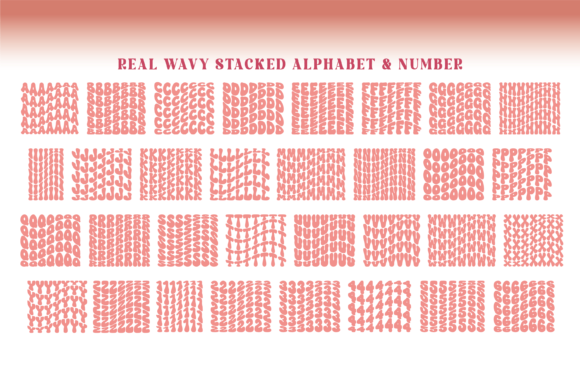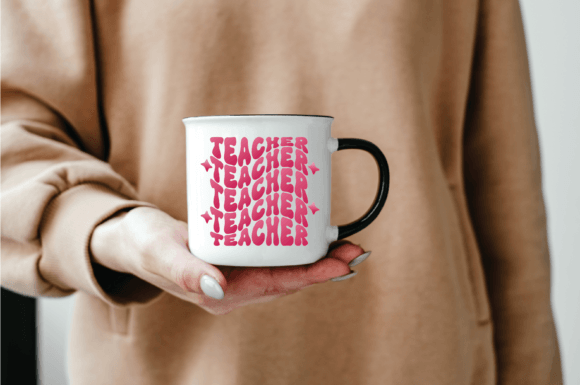
Real Wavy Stacked Font
Real Wavy Stacked is Groovy font style in stacked effect. It’s have 7 glyphe to help you create trendy text design. Many design can create by yourself. Fun and perfect for everyone.